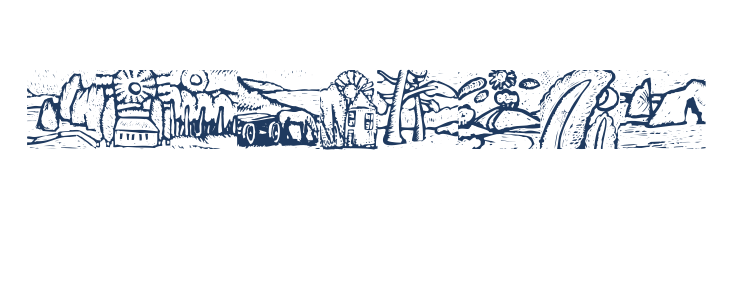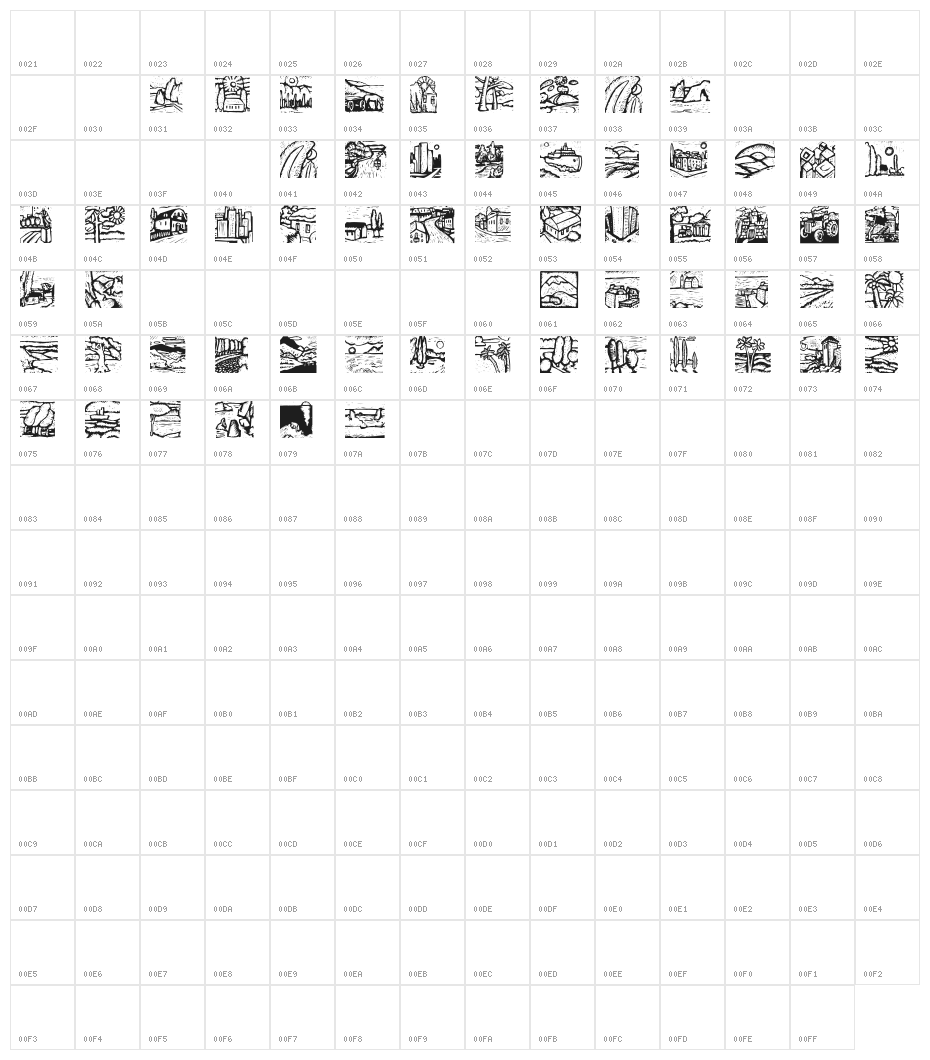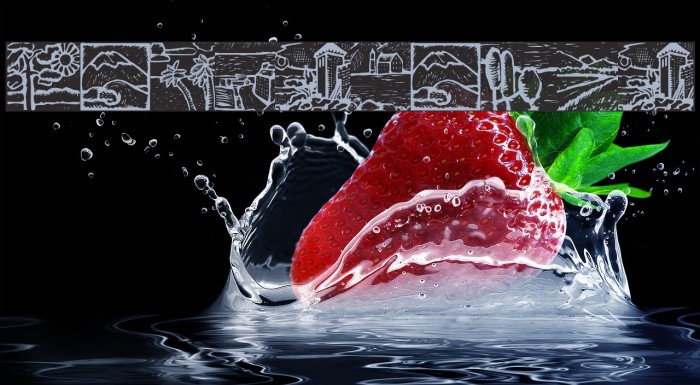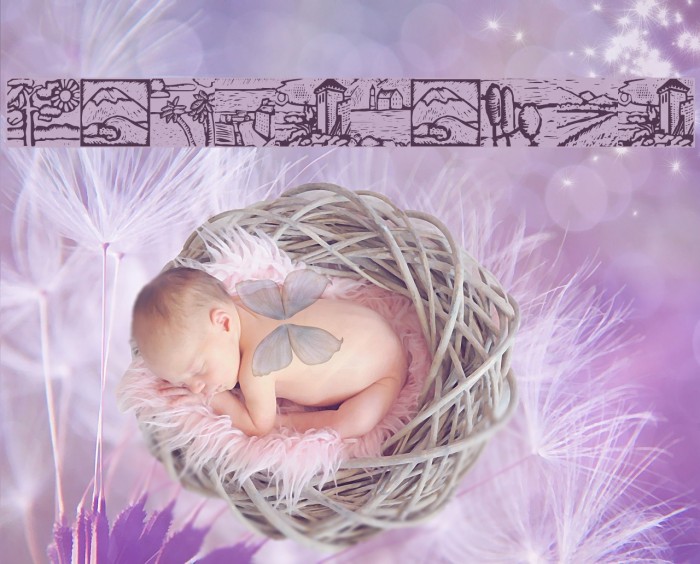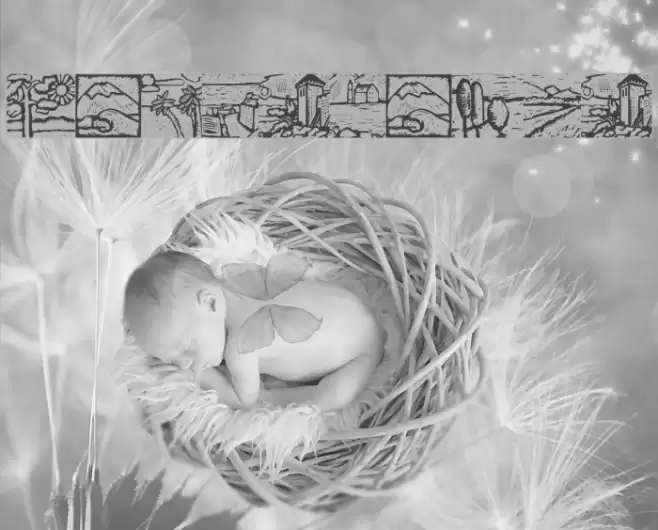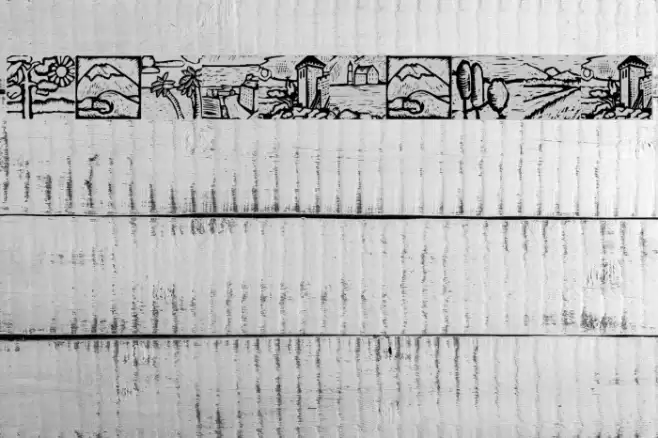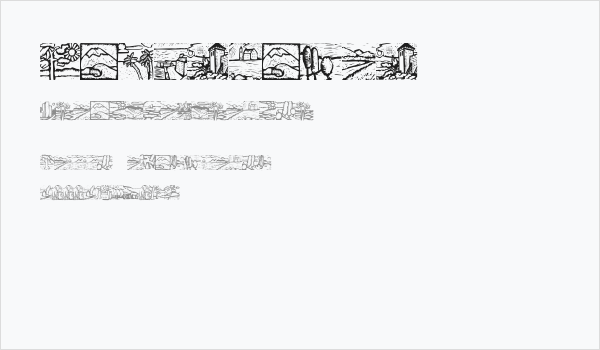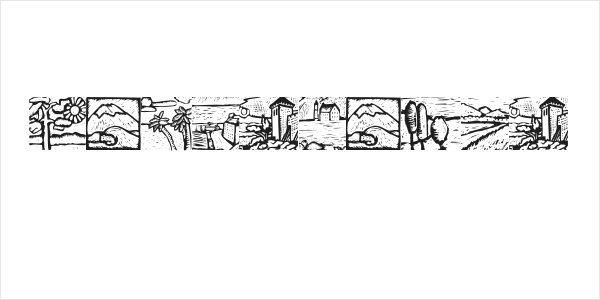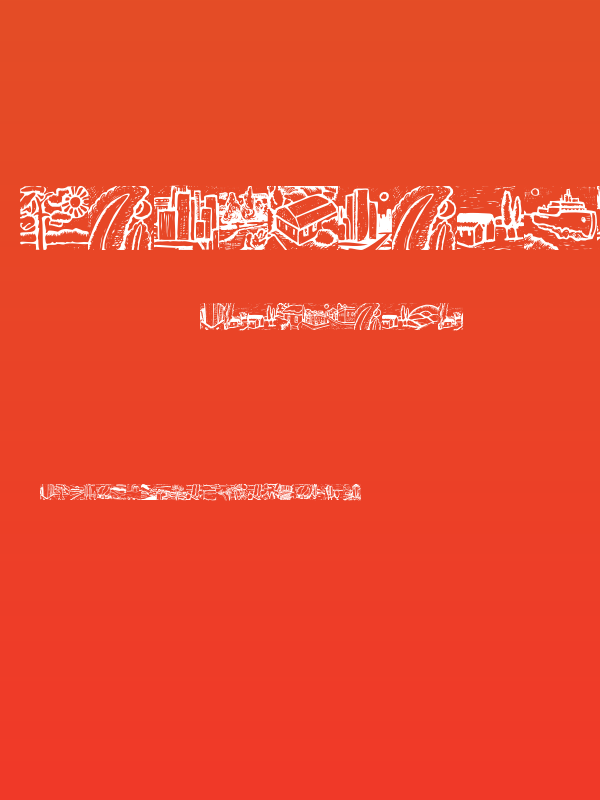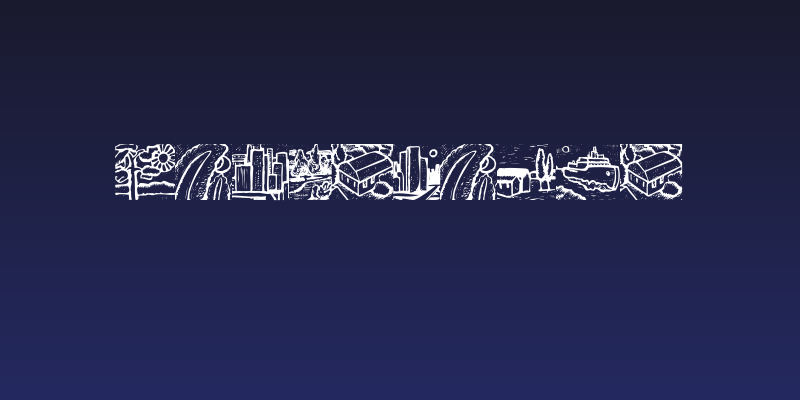
Landscapes Font
Landscapes Description
A decorative font composed of illustrated landscape scenes, each character or glyph represented by a unique, hand-drawn vignette of rural, urban, or natural environments. The style is sketch-like with bold outlines and detailed line work, evoking a whimsical and artistic feel.
| Overall Style | Decorative, Artistic, Whimsical |
| Use Case | Headlines, Logos, Posters, Themed graphics |
| Proposed Projects | ChildrenΓ’β¬β’s books, greeting cards, creative posters, educational materials, themed event invitations. |